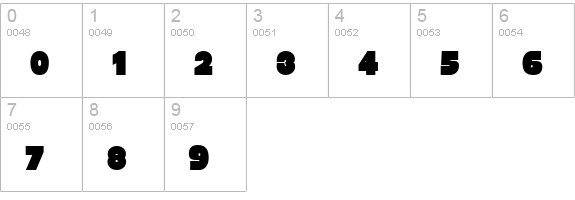
Baltar Font Details
Baltar font is a stylish and modern typeface that exudes elegance and sophistication. With its sleek lines and unique letterforms, Baltar is perfect for adding a touch of sophistication to any design project. This versatile font is suitable for a wide range of applications, from branding and advertising to web design and packaging. What's even better is that Baltar font is completely free to download at FontsMarket.com. This means you can easily access this stunning font and use it in your projects without any cost. Don't miss out on the opportunity to enhance your designs with the beauty of Baltar font - download it today and elevate your creations to the next level.